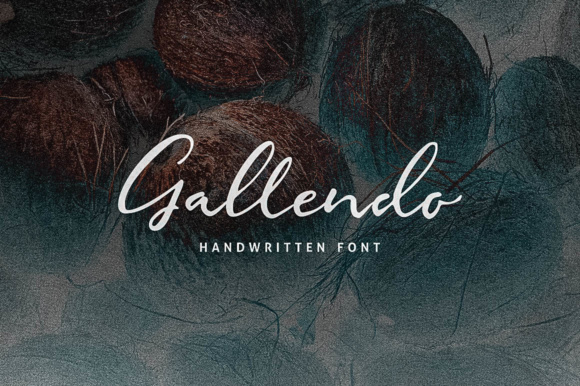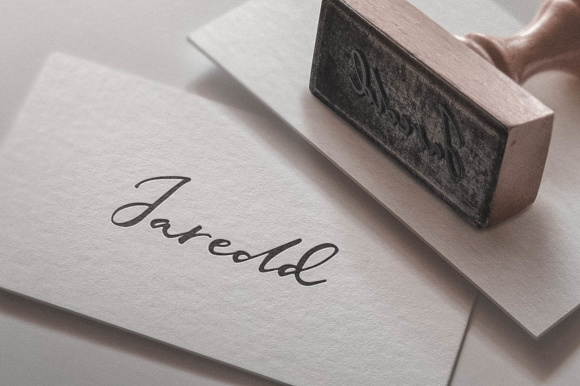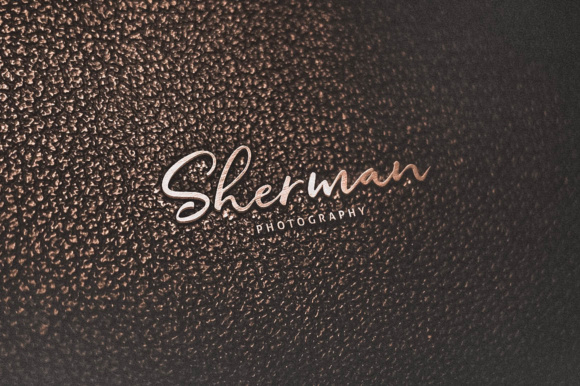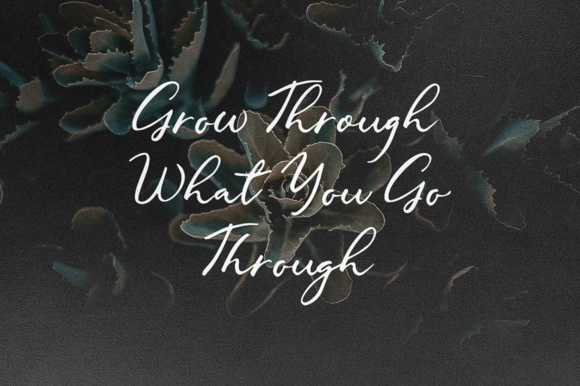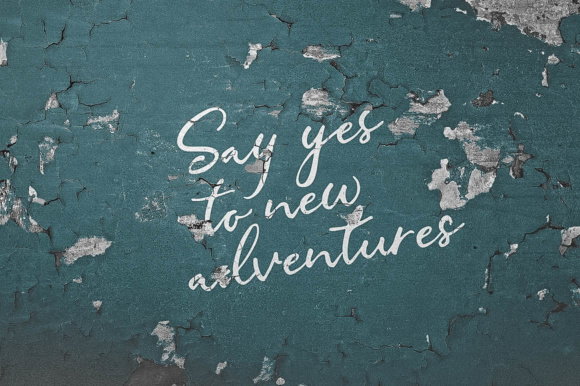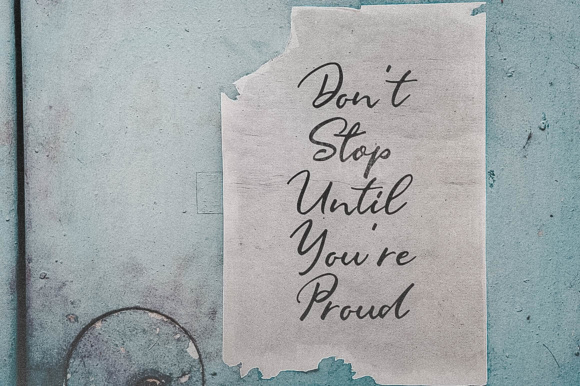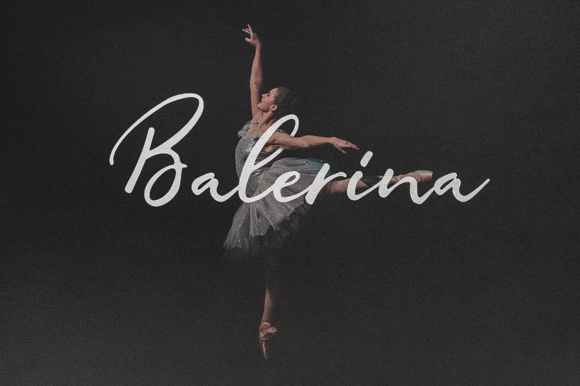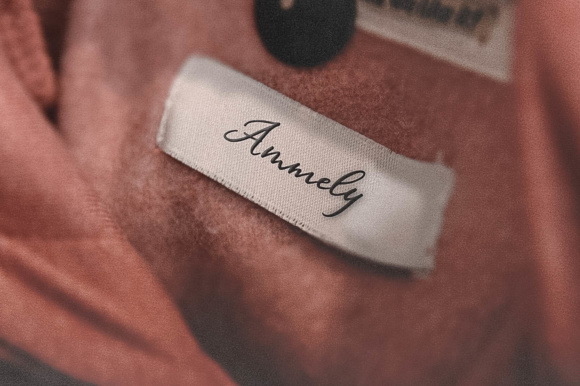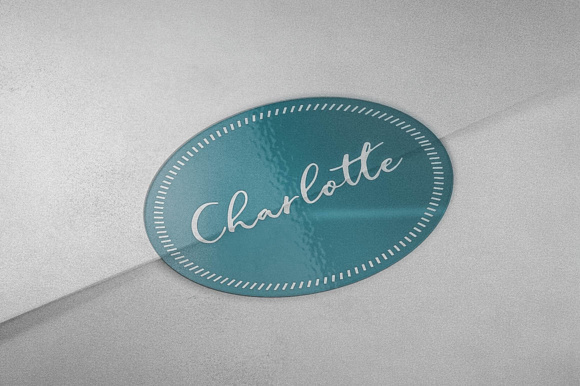
Gallendo Font
About Gallendo Font
Gallendo is a beautiful, handwritten script font that will give your designs a refined look with tons of style and simplicity. This font has a natural flow to it, and works well in signature styled applications.